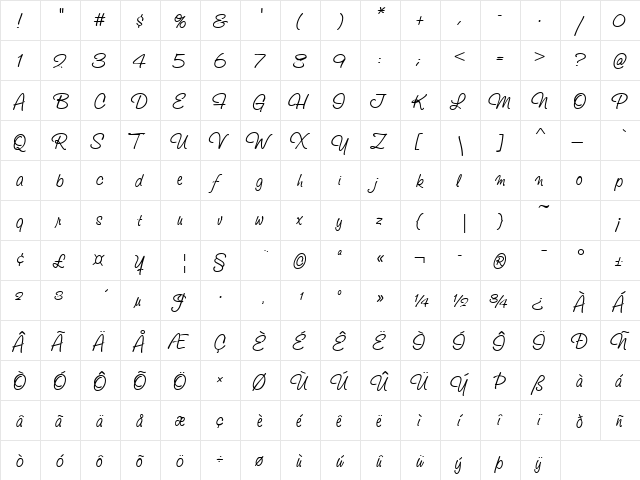
Studio Script ITC TT Regular
Design Context for Studio Script ITC TT Typeface
Studio Script ITC TT flows with the natural rhythm of handwritten lettering, making it ideal for designs that call for warmth and personal expression.
Font Pairing: Combine Studio Script ITC TT with a simple geometric sans for maximum contrast — the tension between flowing curves and clean structure is a classic typographic pairing.
Pro Tip: Pair Studio Script ITC TT with a clean sans-serif for supporting text. The contrast between fluid script and geometric structure creates an elegant typographic hierarchy.